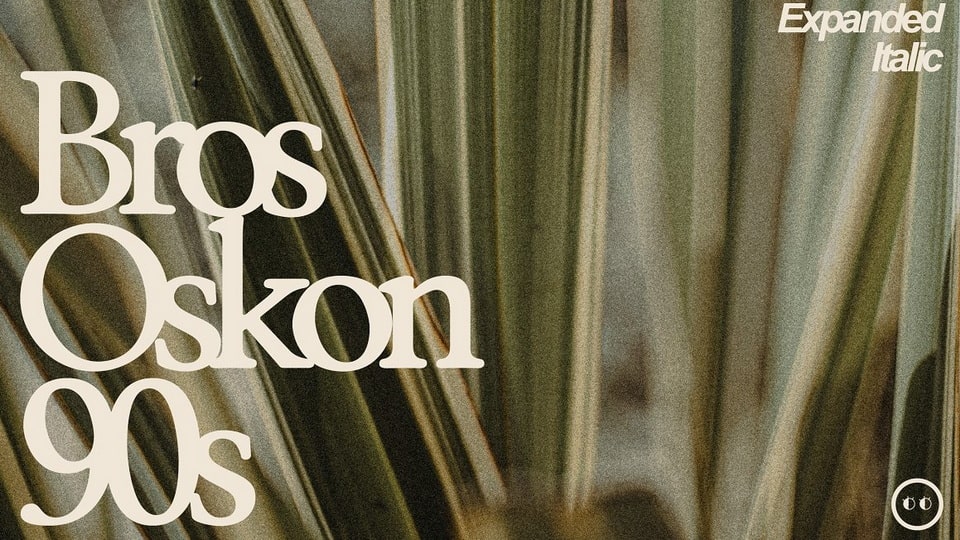
ZT Bros Oskon 90s Font › Fontesk – Download Grátis
Download ZT Bros Oskon 90s font, a captivating typographic creation that seamlessly blends the aesthetic charm of the 1990s retro era with a modern touch. Unleash limitless creativity with this font and infuse a nostalgic 1990s vibe into every one of your creations.